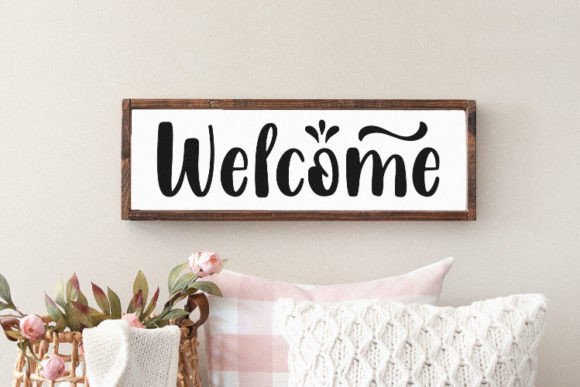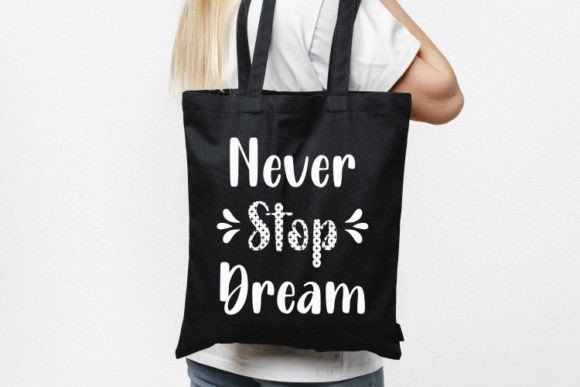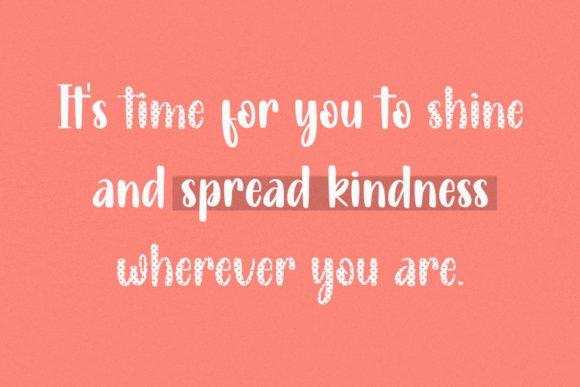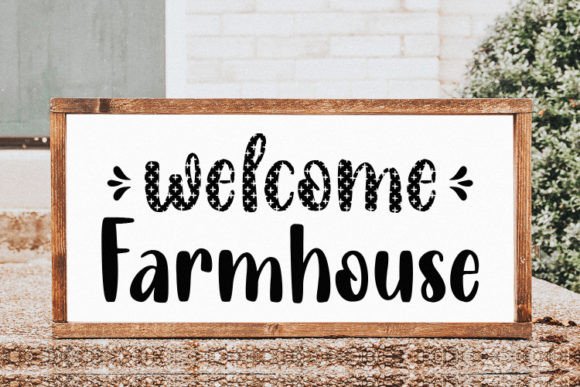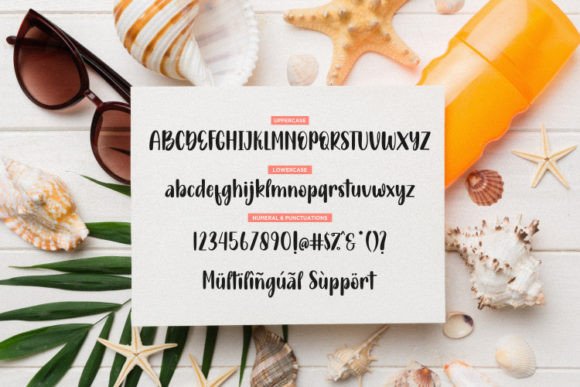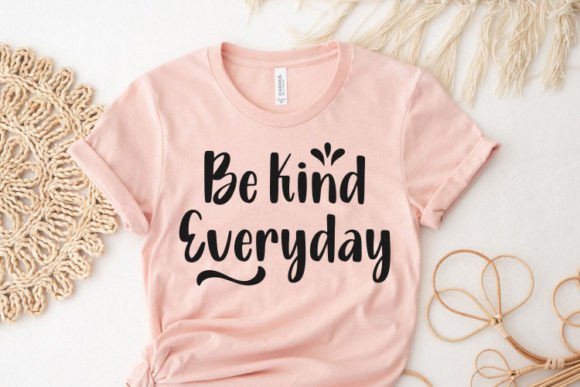
Introduction to Jumping Unicorn Font
Jumping Unicorn is a cute and friendly handwritten font.
Whimsical and a bit quirky, this font will brighten up each of your designs Add it confidently to your projects, and you will love the results.